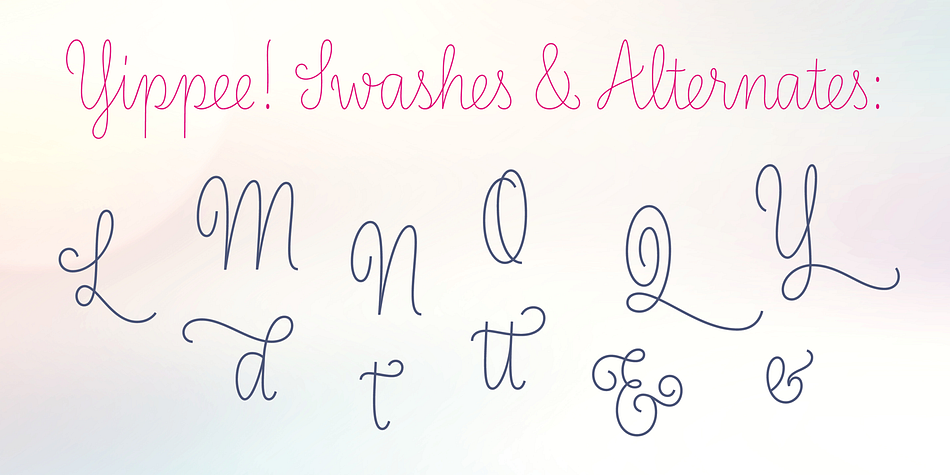
LiebeLotte
LiebeLotte is a script font family. This typeface has six styles and was published by LiebeFonts.
Love Letters for Loop Lovers
Forget that hipster coolness for a minute and design something cute and charming with LiebeLotte!
Go ahead and make beautiful things with her: birthday cards, wedding invitations, love letters, new signage for your deli—so many things look sweeter when you use this well-crafted handwriting font.
We’ve put all of our heart and soul into this typeface—it took us a whole year to draw, refine, and interconnect all these loopy letterforms. We hope it’s really hard to tell that this is a typeface at all—the perfect connections and many swash variations make it look like you actually sat down with a pen.
A pretty good pen in fact.
LiebeLotte comes with a state-of-the-art character set.
She also sports a variety of ligatures and alternative forms, available through OpenType features.
We do think you’ll have plenty of fun with this versatile package of loopy letters for letter lovers.
Or lovely letters for loop lovers.
And hey, you can absolutely use LiebeLotte to make happy hipster designs, too!
Promise!
Love Letters for Loop Lovers
Forget that hipster coolness for a minute and design something cute and charming with LiebeLotte! Go ahead and make beautiful things with her: birthday cards, wedding invitations, love letters, new signage for your deli—so many things look sweeter when you use this well-crafted handwriting font.
We’ve put all of our heart and soul into this typeface—it took us a whole year to draw, refine, and interconnect all these loopy letterforms. We hope it’s really hard to tell that this is a typeface at all—the perfect connections and many swash variations make it look like you actually sat down with a pen. A pretty good pen in fact.
LiebeLotte comes with a state-of-the-art character set. She also sports a variety of ligatures and alternative forms, available through OpenType features. (Please make sure your software supports ligatures for the letter connections and OpenType if you wish to use the advanced features.)
We do think you’ll have plenty of fun with this versatile package of loopy letters for letter lovers. Or lovely letters for loop lovers. And hey, you can absolutely use LiebeLotte to make happy hipster designs, too! Promise!